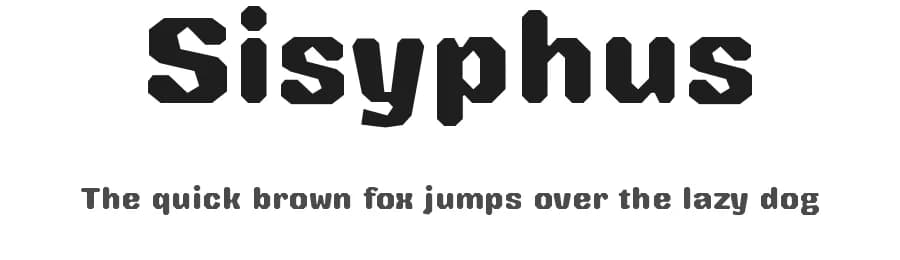
About Sisyphus Font
Inspired by the immense boulder of Sisyphus, the smooth transition of variable font combined with the loop between rough and round as the stone is being transported. In this never-ending journey, Sisyphus learned to live with this. Just like the work in progress of fonts, or even like us life, it is constantly friction day by day. Finally, we gradually understand the meaning of progress in the repetition.
Sisyphus Specifications
| Designer | ๆฎทๆ ้ |